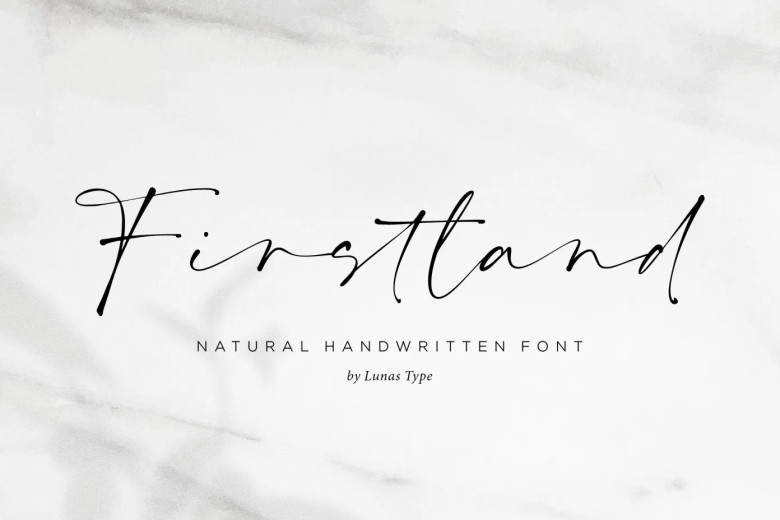
Firstland Font
Firstland Handwritten Font is an eye-catching, sexy, fashionable, and chill handwritten script font. Firstland is very valuable to additional you handwritten and signature font. Firstland is perfect for many design needs such as merch, T-shirts, titles, book covers, social media posts, websites, events, and many more.
Firstland Handwritten Font